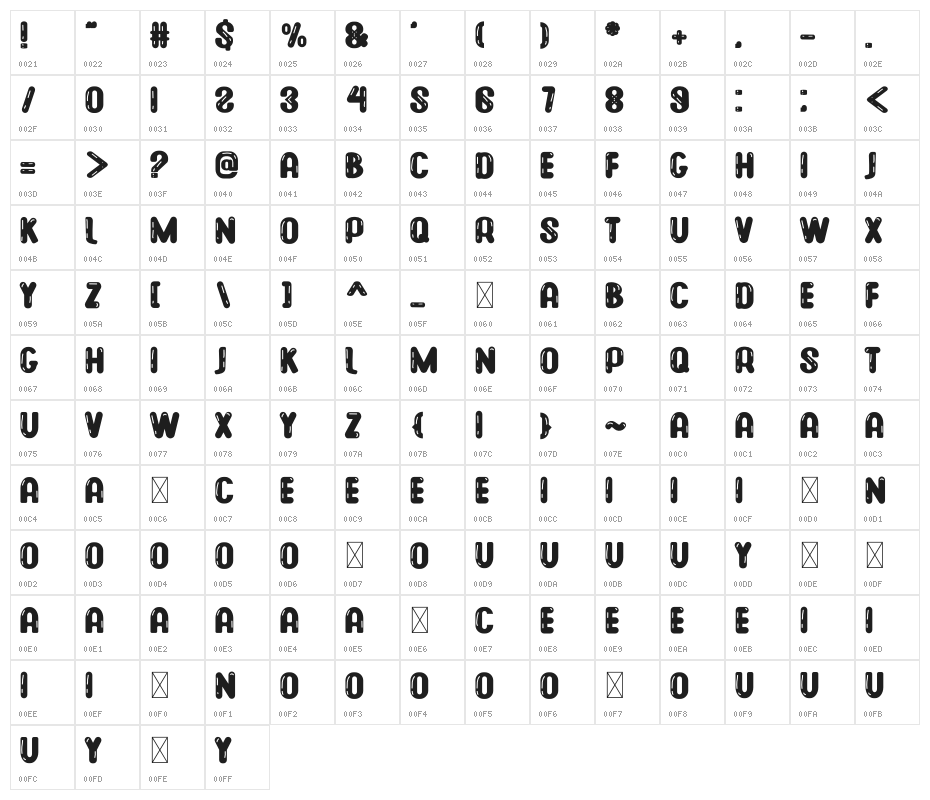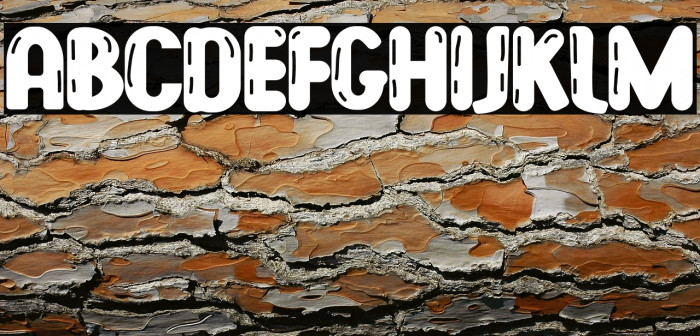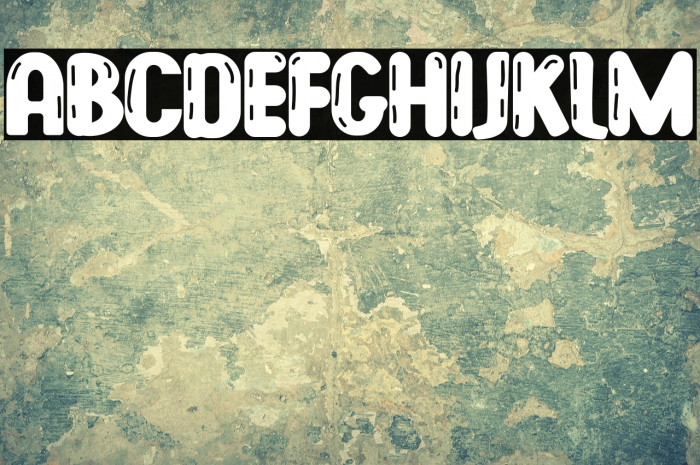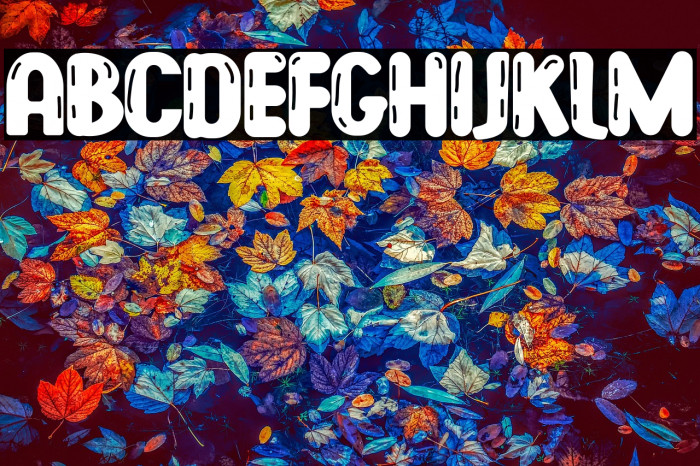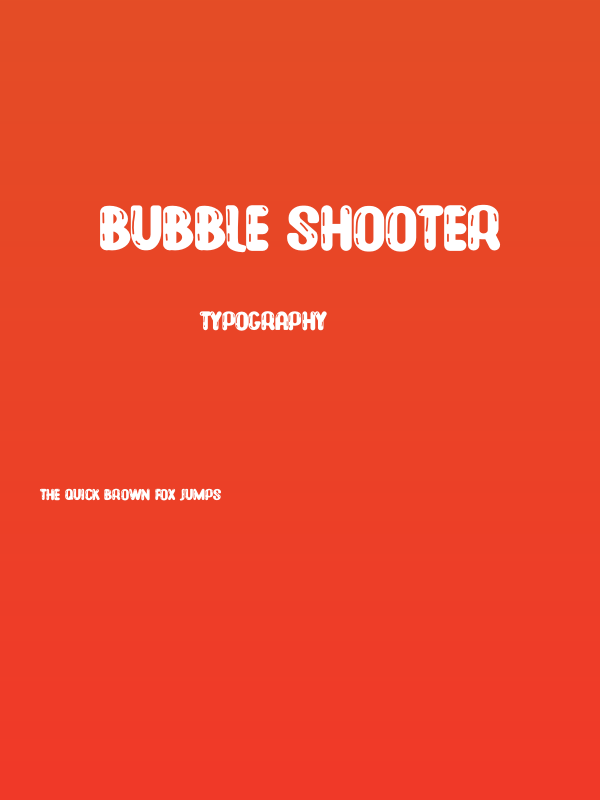
Bubble Shooter Font
Bubble Shooter Description
This playful and bold font features a bubble-like appearance with thick, rounded strokes and a glossy effect that mimics the look of shiny, inflated balloons. The characters are uniformly bold, with a consistent thickness throughout, giving them a strong presence. The font includes both uppercase and lowercase letters, numbers, and a variety of special characters. Its whimsical style is perfect for projects that require a fun and lively touch, such as children's books, party invitations, or playful branding. The font's design is highly decorative, making it ideal for headlines and display purposes where a bold statement is needed.
| Overall Style | Playful, Decorative |
| Use Case | Headlines, Logos, Display |
| Proposed Projects | Ideal for children's books, party invitations, playful branding, and decorative headlines. |